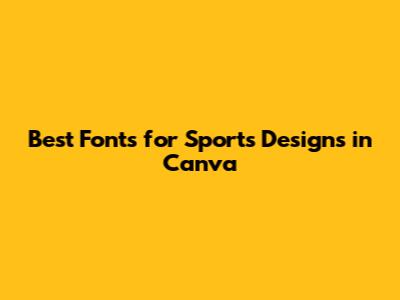
Best Fonts For Sports Designs In Canva
Hey guys! Are you looking to create some eye-catching sports designs in Canva? Well, you've come to the right place! Choosing the right font can make or break your design, so let's dive into the best fonts that will give your sports graphics that winning edge. In this article, we'll explore a variety of fonts perfect for everything from team logos to social media posts. We’ll cover fonts that scream energy, dynamism, and team spirit, ensuring your designs are nothing short of spectacular. So, let's get started and find the perfect font to amplify your sports-themed creations in Canva!
Why Font Choice Matters in Sports Design
Font choice is crucial in sports design because it communicates the brand's personality and the sport's essence. Think about it – a delicate script font wouldn't exactly scream 'basketball' or 'football,' right? The right font can evoke feelings of power, speed, and excitement, which are all integral to the sports world. Imagine designing a poster for a boxing match; you’d want a font that feels strong and impactful, something that can stand toe-to-toe with the intensity of the sport itself.
Think of fonts as the voice of your design. They convey the message just as much as the visuals do. A bold, sturdy font can project confidence and strength, perfect for team logos or motivational posters. Conversely, a sleek, modern font can add a sense of speed and agility, ideal for designs related to running or cycling. The key is to align the font's personality with the sport's characteristics and the overall tone you want to convey. For example, when designing for a youth sports team, you might opt for a font that is playful and energetic, reflecting the enthusiasm and fun of the game.
Readability is another vital aspect. Your design could be visually stunning, but if the text is illegible, the message is lost. This is especially important in sports designs, which often need to be readable at a glance – whether on a jersey, a banner, or a social media graphic. Consider the viewing distance and the context in which the design will be seen. A font that looks great on a computer screen might not translate well to a large banner viewed from afar. Ensure that the font is clear, concise, and easily readable, maintaining the impact of your design without sacrificing legibility.
Furthermore, consistency in font choice across different platforms and materials helps to build a strong brand identity. Whether it's a team's website, merchandise, or promotional materials, using the same fonts creates a cohesive and professional image. This consistency reinforces brand recognition and helps to establish a strong connection with fans and followers. Think about iconic sports brands like Nike or Adidas – their font choices are instantly recognizable and have become synonymous with their brand identity. By carefully selecting and consistently using fonts, you can create a lasting impression and strengthen your brand's presence in the competitive sports market.
Top Font Categories for Sports Designs
Choosing the right font category is the first step in creating a killer sports design. There are a few categories that consistently deliver that dynamic, athletic feel we're after. Let's break down some of the top contenders:
Bold Sans-Serif Fonts
Bold sans-serif fonts are your go-to for a modern, strong, and impactful look. Think of fonts like Bebas Neue, Montserrat, and Oswald. These fonts have clean lines and a sturdy presence, making them perfect for team logos, headlines, and anything that needs to grab attention. Imagine a football team's logo emblazoned across a jersey or a motivational banner hanging in a gym – these fonts have the weight and clarity to make a statement. Their simplicity also ensures they remain readable across various media, from small social media graphics to large-scale prints.
These fonts often convey a sense of authority and dynamism, making them ideal for sports brands aiming to project confidence and strength. Bebas Neue, for instance, is a widely used sans-serif known for its tall, condensed letters, giving it a modern and powerful feel. Montserrat, on the other hand, offers a more balanced and versatile option with its clean, geometric shapes. Oswald strikes a middle ground with its slightly rounded terminals, adding a touch of friendliness while maintaining a strong presence. When used effectively, bold sans-serif fonts can create a visual hierarchy in your design, drawing the viewer's eye to the most important information and leaving a lasting impression.
Moreover, the versatility of bold sans-serif fonts makes them a practical choice for various design applications within the sports industry. They work equally well in print and digital formats, ensuring consistency across all marketing materials. Whether you’re designing a website, a poster, or social media graphics, these fonts maintain their impact and readability. Their clean and modern aesthetic also allows them to pair well with other design elements, such as bold colors, dynamic graphics, and striking photography. This adaptability makes them a staple in the toolkit of any designer working on sports-related projects, providing a solid foundation for creating visually compelling and effective designs.
Strong Slab-Serif Fonts
Slab-serif fonts have that vintage and powerful vibe that's perfect for sports designs with a classic twist. Fonts like Roboto Slab and Arvo bring a sense of authority and tradition, making them great for sports teams with a rich history or for designs that need a bit of old-school charm. Picture a baseball team's logo or a vintage-inspired sports poster – slab-serif fonts add a touch of nostalgia while still maintaining a strong presence. Their robust serifs and sturdy letterforms command attention, conveying a sense of resilience and heritage.
Slab-serif fonts are particularly effective in designs that aim to evoke a sense of legacy and endurance. Their distinct, block-like serifs give them a solid and grounded appearance, making them ideal for branding elements that need to stand the test of time. In the sports world, where tradition and history often play a significant role, slab-serif fonts can add a layer of depth and authenticity to your designs. They work especially well for teams or events with a long-standing heritage, helping to communicate a sense of pride and continuity. For instance, a slab-serif font might be used for the branding of a historic sports club or for the commemorative posters of a long-running tournament.
Furthermore, the bold and assertive nature of slab-serif fonts makes them highly readable in various contexts, whether used for headlines, subheadings, or body text. Their strong presence ensures they don't get lost in busy designs, and their clear letterforms maintain legibility across different media. This readability, combined with their vintage appeal, makes them a versatile choice for sports designers looking to blend the old with the new. By using slab-serif fonts strategically, you can create designs that honor the past while still feeling fresh and relevant. Whether it's for a retro-themed sports event or a modern team with a nod to its history, slab-serif fonts can add a distinctive and memorable touch.
Dynamic Display Fonts
For designs that need an extra dose of energy and personality, dynamic display fonts are the way to go. These fonts are often more stylized and unique, perfect for creating memorable logos, posters, and social media graphics. Think of fonts with a sense of speed, motion, or impact – they can bring your designs to life. Imagine a basketball tournament poster with a font that looks like it's leaping off the page or a racing event logo with a font that evokes the rush of adrenaline. Dynamic display fonts are all about making a bold statement and capturing the excitement of the sport.
These fonts are particularly useful for designs that need to stand out and grab attention in a crowded visual landscape. Their distinctive shapes and styles can add a unique flair to your projects, helping to convey the specific mood and energy of the sport. For example, a font with sharp, angular lines might be perfect for a martial arts event, while a font with curved, flowing strokes could be ideal for a dance competition. The key is to choose a display font that aligns with the sport's characteristics and the overall message you want to communicate. Whether it's aggression, grace, or speed, the right dynamic display font can amplify the emotional impact of your design.
However, it's important to use dynamic display fonts sparingly and strategically. Because they are often highly stylized, they can be less readable than more traditional fonts, especially in large blocks of text. Therefore, it's best to reserve them for headlines, logos, and other key elements where you want to make a strong visual statement. Pairing a dynamic display font with a cleaner, more legible font for body text can create a balanced and effective design. This approach allows you to harness the personality and energy of the display font without sacrificing readability. By using dynamic display fonts judiciously, you can add a touch of creativity and excitement to your sports designs, making them truly unforgettable.
Specific Font Recommendations for Canva
Okay, guys, let's get down to specifics! Canva has a ton of fonts to choose from, which can be a little overwhelming. But don't worry, I've got you covered. Here are some of my top font recommendations for sports designs in Canva, broken down by category:
Best Bold Sans-Serif Fonts in Canva
When it comes to bold sans-serif fonts in Canva, you've got some seriously awesome options. These fonts are perfect for headlines, logos, and anything that needs to pack a punch. Let's dive into some top picks:
-
Bebas Neue: This is a classic for a reason. Bebas Neue is clean, modern, and super versatile. It’s tall and condensed, giving it a powerful presence that works wonders for sports designs. Imagine it emblazoned across a team jersey or a motivational poster – it just screams strength and dynamism. Plus, its simplicity ensures it’s readable across various media, from small social media graphics to large-scale prints. If you're looking for a font that makes a statement without being overly flashy, Bebas Neue is your go-to.
-
Montserrat: If you want something a bit more balanced and versatile, Montserrat is an excellent choice. It’s got clean, geometric shapes that make it feel both modern and professional. This font works beautifully for everything from website headers to branding materials. Its balanced proportions and clear letterforms make it incredibly readable, ensuring your message comes across loud and clear. Montserrat’s versatility shines through in its ability to pair well with various other design elements, making it a staple for designers working on diverse projects.
-
Oswald: Striking a nice middle ground, Oswald brings a slightly rounded touch to the bold sans-serif category. This adds a touch of friendliness while still maintaining a strong presence. It’s great for headlines and subheadings, adding a bit of warmth to your design while keeping it modern and impactful. Oswald's subtle curves soften the harshness often associated with bold fonts, making it a versatile option for sports designs that aim to strike a balance between strength and approachability. Whether you’re designing a team logo or a social media banner, Oswald offers a unique blend of modern and classic aesthetics.
These bold sans-serif fonts in Canva give you a fantastic foundation for creating powerful and effective sports designs. They're clean, versatile, and ready to make a statement, ensuring your message hits home every time.
Top Slab-Serif Fonts for Sports in Canva
For that classic, powerful vibe, slab-serif fonts are where it's at. Canva has some great options that can add a touch of vintage charm and authority to your sports designs. Here are a couple of standout slab-serif fonts you should definitely check out:
-
Roboto Slab: This font is a workhorse. It’s strong, readable, and has a modern feel while still maintaining that classic slab-serif presence. Roboto Slab is fantastic for everything from body text to headlines, making it super versatile. Think of it on a vintage-inspired sports poster or a baseball team's logo – it just exudes tradition and strength. Its sturdy serifs and clear letterforms command attention, making it a reliable choice for designs that need to stand the test of time.
-
Arvo: Arvo is another excellent slab-serif choice in Canva. It's got a slightly more geometric feel than Roboto Slab, giving it a unique edge. It’s great for headlines and subheadings, adding a bit of character to your designs. Picture it on a retro-themed sports event banner or a team's website header – Arvo brings a sense of authority and nostalgia that’s hard to beat. Its distinct letterforms make it highly readable in various contexts, whether used for print or digital media, ensuring your message comes across with clarity and impact.
These slab-serif fonts offer a perfect blend of classic charm and modern readability, making them ideal for sports designs that aim to evoke a sense of heritage and strength. Whether you’re working on branding materials or promotional graphics, Roboto Slab and Arvo are sure to deliver a powerful and memorable impact.
Dynamic Display Font Picks for Canva
If you're looking to add some serious energy and personality to your sports designs, you need to explore dynamic display fonts. Canva has some fantastic options that can help you create eye-catching logos, posters, and social media graphics. Here are a few top picks that will bring your designs to life:
-
League Gothic: This font is a powerhouse. It's a condensed sans-serif that feels both modern and aggressive, perfect for designs that need to make a bold statement. Think of it on a boxing match poster or a football team's banner – League Gothic just screams intensity. Its tall, narrow letters command attention, making it ideal for headlines and titles. League Gothic's strong presence ensures it stands out in crowded visual landscapes, helping you grab the viewer's attention and convey a sense of urgency and excitement.
-
Bangers: For a font that's bursting with energy and fun, Bangers is an excellent choice. It's a comic-inspired typeface that’s great for designs with a playful vibe. Imagine it on a kids' sports team flyer or a social media graphic for a fun run – Bangers adds a touch of whimsy and enthusiasm. Its bold, rounded letters and dynamic shapes make it highly engaging, ensuring your message is delivered with a smile. Bangers is particularly effective in designs that aim to appeal to a younger audience or those that want to inject some lightheartedness into their branding.
-
Luckiest Guy: If you want a font that's bold, friendly, and a little bit retro, Luckiest Guy is a fantastic option. It’s a chunky, hand-drawn style font that feels both approachable and impactful. Picture it on a retro-themed sports event poster or a team's merchandise – Luckiest Guy adds a touch of nostalgia and character. Its distinctive letterforms and bold presence make it highly memorable, helping your designs stand out from the crowd. Luckiest Guy is perfect for projects that aim to convey a sense of camaraderie and fun, making it a great choice for sports teams and events with a strong community focus.
These dynamic display fonts in Canva are your secret weapon for creating sports designs that are full of life and personality. They're perfect for making a lasting impression and ensuring your message is not only heard but also felt.
Tips for Pairing Fonts in Canva
Alright, guys, choosing individual fonts is one thing, but pairing them effectively is where the magic really happens. A well-paired font combination can elevate your design from good to amazing. Here are some tips to help you master the art of font pairing in Canva, ensuring your sports designs are visually harmonious and impactful:
-
Contrast is Key: The golden rule of font pairing is to create contrast. Don't choose two fonts that are too similar, as this can make your design look bland and uninspired. Instead, aim for a clear visual distinction. For example, pair a bold sans-serif font like Bebas Neue with a classic serif font like Lora. The stark contrast in styles will create a dynamic and engaging visual hierarchy, ensuring your headlines grab attention while your body text remains easy to read. Contrast can also be achieved by varying font weights and sizes. Using a heavier weight for headlines and a lighter weight for body text can create a clear visual distinction, making your design more organized and accessible.
-
Consider Hierarchy: Think about the hierarchy of your text. What's the most important information? What's secondary? Use font pairings to guide the viewer's eye. A strong display font for headlines paired with a simple, readable font for body text is a classic approach. This combination allows your headlines to stand out while ensuring your body text remains legible. For example, you might pair a dynamic display font like League Gothic with a clean sans-serif font like Open Sans. This creates a clear visual hierarchy, drawing the viewer’s eye to the most important information first.
-
Limit Your Choices: It's tempting to use a bunch of different fonts, but resist the urge! Sticking to two or three fonts at most will keep your design looking clean and professional. Too many fonts can create visual clutter and make your design feel disjointed. A well-chosen font pairing can create a cohesive and polished look, enhancing the overall impact of your message. For instance, you might use one font for headlines, another for subheadings, and a third for body text. This approach allows you to create visual interest without overwhelming the viewer.
-
Think About the Mood: Just like individual fonts, font pairings can convey a specific mood or tone. A bold sans-serif paired with a sturdy slab-serif might feel strong and authoritative, while a script font paired with a clean sans-serif can feel more elegant and approachable. Consider the overall message you want to convey and choose font pairings that align with that mood. For a sports design, you might want to evoke feelings of energy, excitement, or strength. Pairing a dynamic display font with a clean, readable sans-serif can create a sense of dynamism and impact, while a slab-serif paired with a classic sans-serif can convey a sense of tradition and authority.
-
Use Canva's Font Pairing Suggestions: Canva actually offers some built-in font pairing suggestions, which can be a great starting point. Explore these combinations to get a feel for what works well together. Canva's suggestions are curated by design professionals, ensuring that the fonts are visually compatible and complement each other effectively. These suggestions can save you time and effort, providing a solid foundation for your design. However, don’t be afraid to experiment and customize the pairings to fit your specific needs and preferences. The goal is to find a combination that not only looks good but also enhances your message and reflects your brand's personality.
By following these tips, you’ll be pairing fonts like a pro in no time, creating sports designs that are both visually stunning and effectively communicate your message.
Final Thoughts
So there you have it, guys! Choosing the right fonts for your sports designs in Canva can make a huge difference. Whether you go for a bold sans-serif, a strong slab-serif, or a dynamic display font, remember to consider the mood, readability, and overall impact of your design. And don't forget the importance of pairing fonts effectively to create a visually appealing and cohesive look.
With the right font choices, your sports designs will not only capture the energy and excitement of the game but also leave a lasting impression on your audience. So, go ahead, experiment with these recommendations, and create some winning designs in Canva! Remember, the perfect font is out there waiting to help you tell your story and elevate your brand in the competitive world of sports. Whether you're designing logos, posters, social media graphics, or merchandise, the right fonts can make all the difference. So, go out there and make your mark with typography that truly stands out!